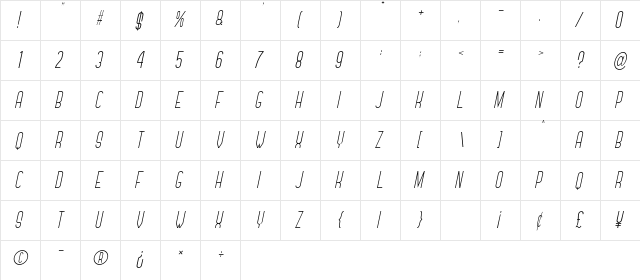
Forever Together Sans Light Italic Font Preview
| Designer | Lettersiro 2018 |
Design Context for Forever Together Sans Light Typeface
Forever Together Sans Light takes a measured approach to typography — its balanced proportions and neutral character make it a reliable workhorse for both digital and print work. Its italic angle brings a sense of urgency and motion to the letterforms. The delicate stroke weight brings airiness and refinement to layouts.
Pro Tip: Use Forever Together Sans Light for emphasis, pull quotes, and subheadings where its slanted energy can add rhythm to the layout.